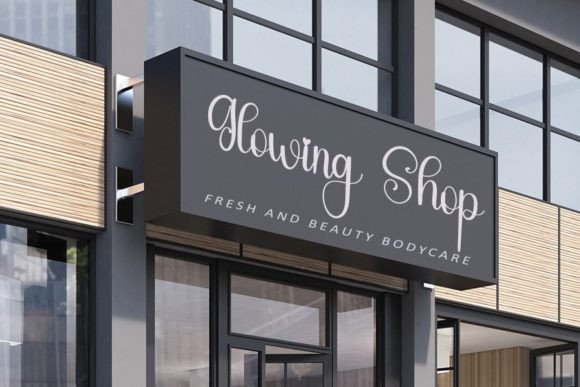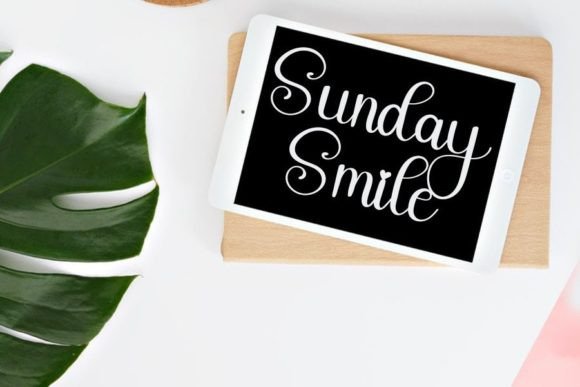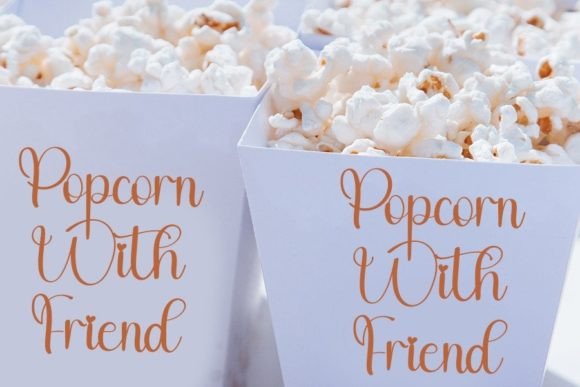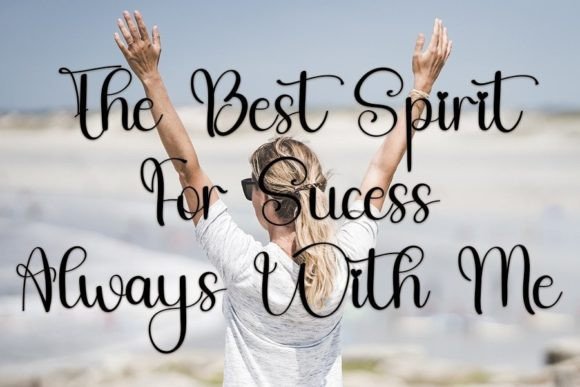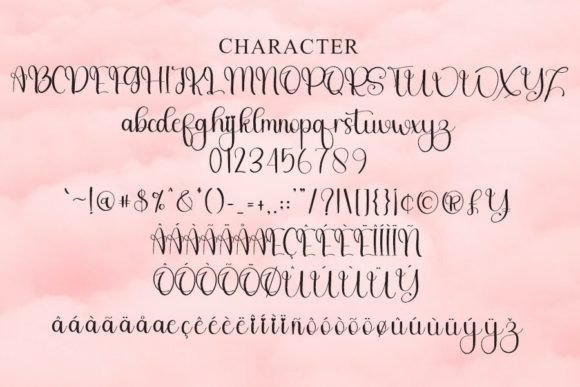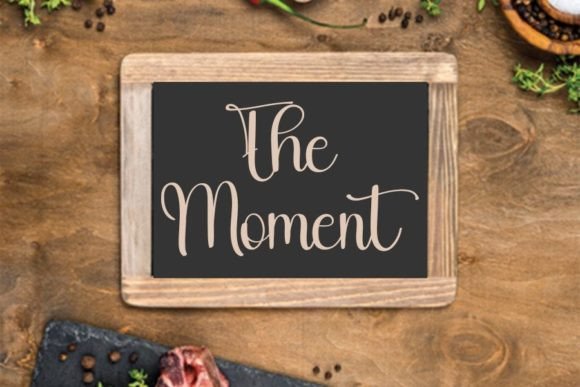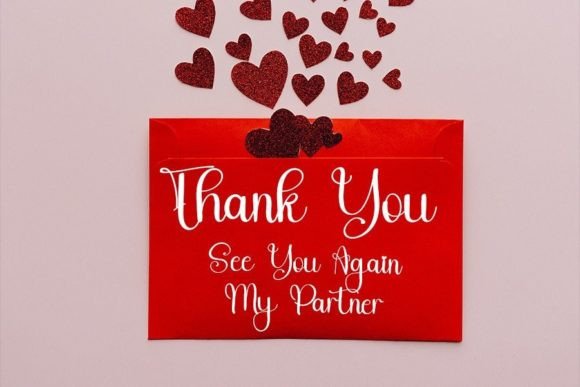
Anytime Font
Anytime is an exquisite and sophisticated handwritten font that effortlessly blends beauty with refinement. Its timeless appeal makes it the perfect choice for a myriad of design applications, including logos, branding, invitations, stationery, wedding designs, social media posts, and beyond.
With a touch of class and a modern flair, Anytime lends an air of elegance to your creative projects. Its versatility allows you to seamlessly integrate it into various design contexts, from the formal grace of wedding invitations to the dynamic presence required for social media posts. This font is not merely a tool; it’s a design companion that enhances the visual aesthetics of your work.
One of the standout features of Anytime is its PUA encoding. This encoding opens up a world of creative possibilities by providing easy access to a vast array of unique glyphs and ligatures. This means you can effortlessly incorporate distinctive elements into your designs, making them truly one-of-a-kind. The flexibility afforded by PUA encoding ensures that your creative process is smooth and enjoyable, allowing you to explore and experiment with different combinations to achieve the perfect look for your project.
Imagine crafting a logo that not only reflects the identity of a brand but also exudes sophistication and charm. Anytime’s handwritten finesse can elevate your branding, leaving a lasting impression on your audience. For wedding designs, the font adds a touch of romance and style, setting the tone for a memorable celebration. In the realm of social media, Anytime stands out, making your posts visually appealing and engaging.
As you delve into the design possibilities with Anytime, each glyph becomes a brushstroke, contributing to the overall artistry of your project. This font goes beyond being a mere typeface; it becomes a key player in telling your visual story. The PUA encoding is your passport to a world of creativity, allowing you to unlock the full potential of Anytime and bring your design visions to life effortlessly.
In a landscape where first impressions matter, Anytime stands as a testament to the power of elegant typography. Let it be the tool that transforms your creative ideas into refined and memorable designs, ensuring that anytime is the perfect time to make a lasting impact.